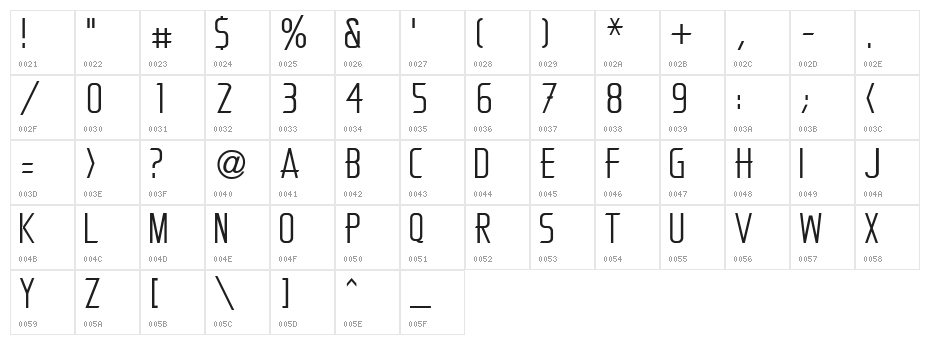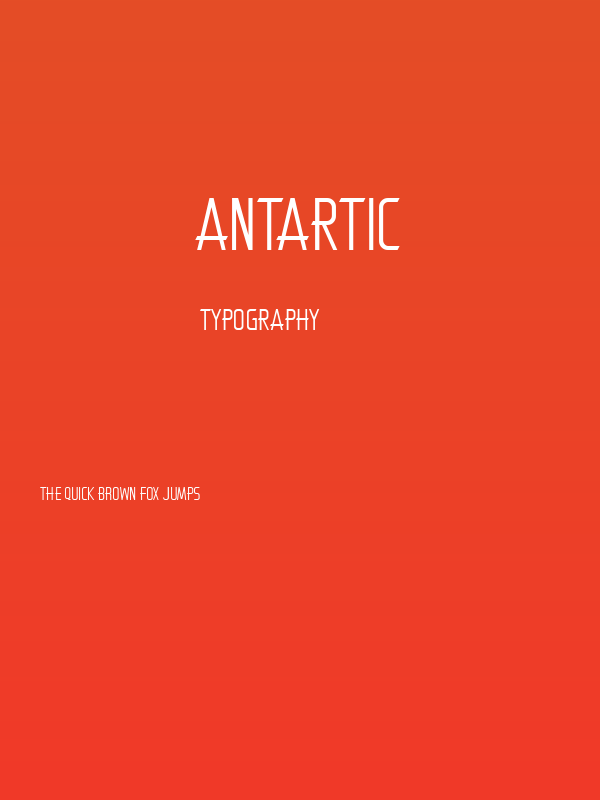
Antartic Font
Antartic Description
This font features a modern and geometric design with clean, straight lines and a consistent stroke width. The characters are tall and narrow, giving it a condensed appearance. The uppercase and lowercase letters maintain a uniform height, contributing to its sleek and streamlined look. The numerals and special characters are designed to match the overall aesthetic, with a focus on clarity and legibility. The font's minimalistic style makes it suitable for contemporary design projects where a clean and professional look is desired.
Use CaseHeadlines, Logos, Digital interfaces
Proposed ProjectsIdeal for branding, advertising, editorial design, and digital interfaces where a modern and clean aesthetic is required.